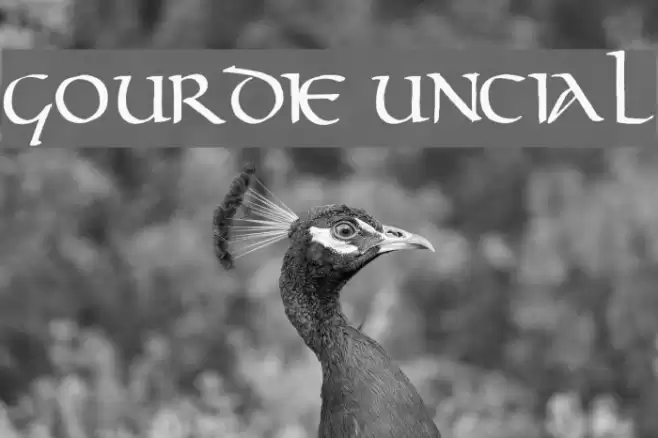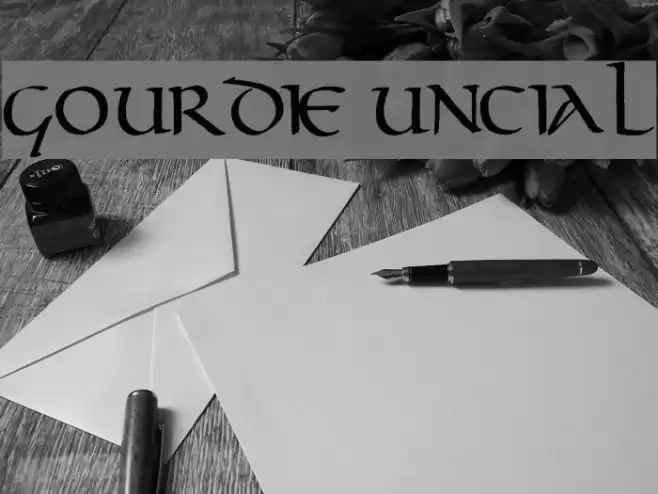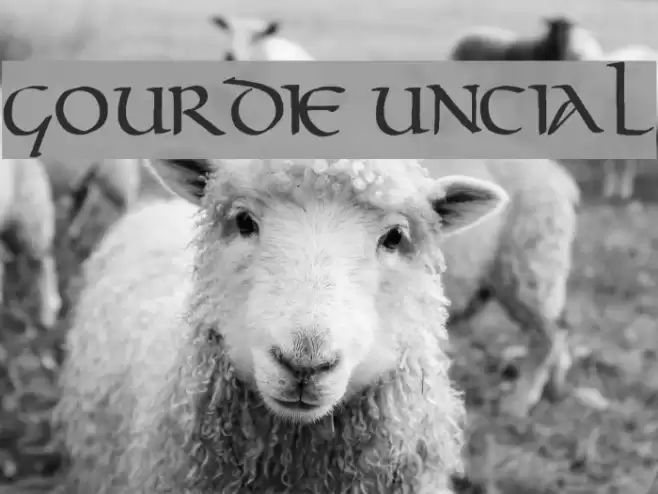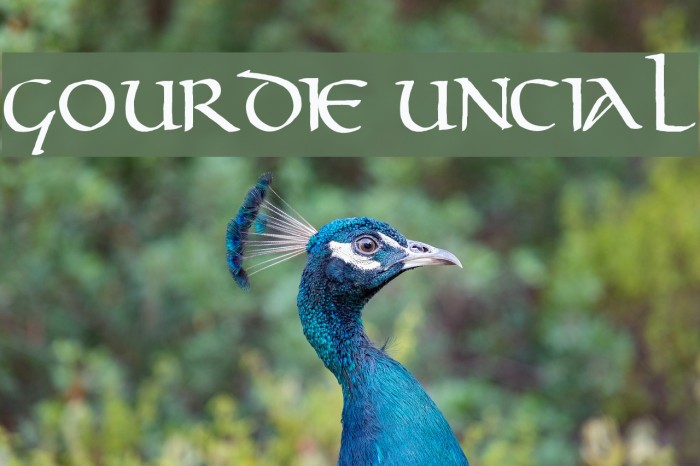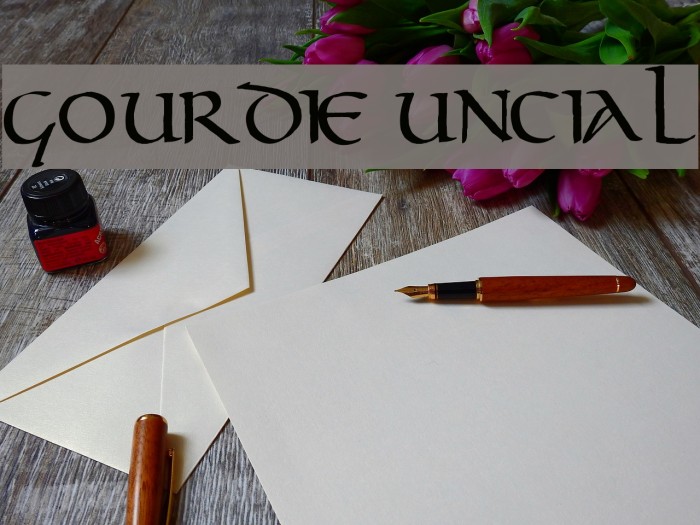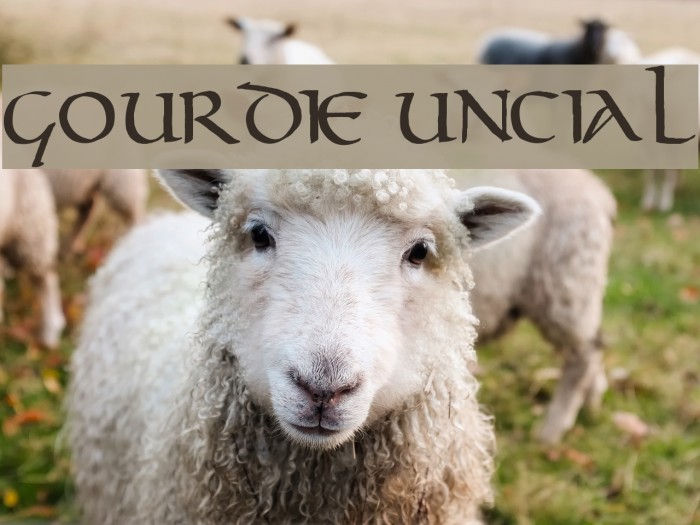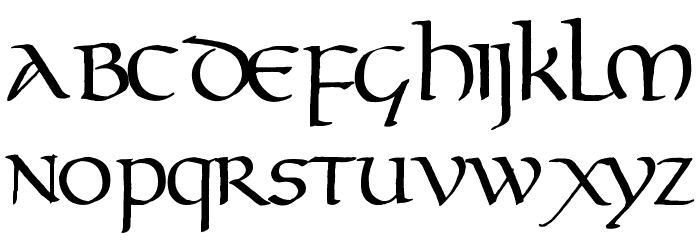
Gourdie Uncial Font
Gourdie Uncial Description
This font features a distinct medieval style, reminiscent of traditional uncial scripts. The characters are characterized by their rounded forms and a slight inclination, giving them a fluid and dynamic appearance. The strokes vary in thickness, providing a moderate contrast that enhances readability while maintaining an artistic flair. The uppercase letters are particularly ornate, with unique flourishes that add a touch of elegance. The lowercase letters complement the uppercase with a more subdued design, yet they retain the overall medieval aesthetic. This font is well-suited for projects that require a historical or fantasy theme, offering a sense of authenticity and charm.
A medieval-style font with rounded forms and moderate contrast, ideal for historical themes from Uncategorized fonts.
- Proposed Projects: Ideal for use in fantasy novels, historical documents, themed invitations, and game design.
- Overall Style: Vintage